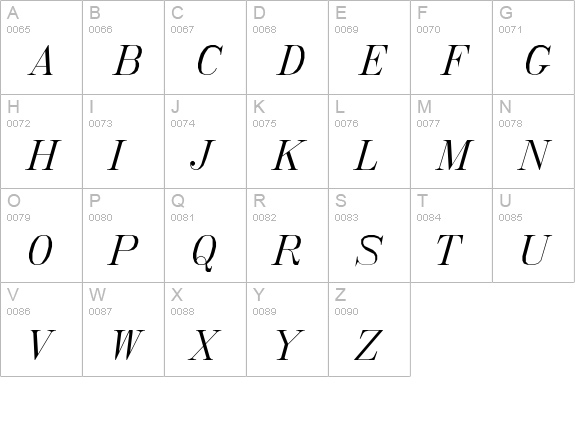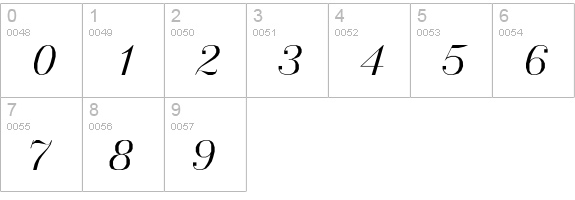
Introducing ItalicT font, a stylish and elegant typeface that combines classic design elements with a modern twist. This versatile font is perfect for adding a touch of sophistication to any project, whether it's a logo, branding materials, invitations, or any other creative endeavor. ItalicT font features a unique blend of clean lines and subtle curves, resulting in a visually appealing and highly legible typeface. Its sleek and contemporary look makes it suitable for a wide range of applications, while its italicized design adds a hint of creativity and flair. One of the standout features of ItalicT font is that it is completely free to use. That's right, this stunning font is freely available to download at FontsMarket.com. This means that you can enhance your designs without worrying about any additional costs. With ItalicT font, you can effortlessly create eye-catching headlines, captivating body text, or striking graphics. Its versatility allows you to experiment with different styles and layouts, giving you the freedom to express your creativity in unique and compelling ways. Whether you're a professional designer or a novice enthusiast, ItalicT font is a valuable addition to your font library. Its clean and modern aesthetic, combined with its free availability, makes it an irresistible choice for any design project. So why wait? Visit FontsMarket.com today and download ItalicT font for free. Elevate your designs and make a lasting impression with this exceptional typeface.